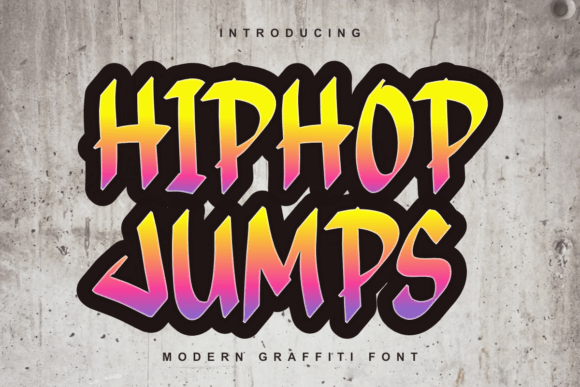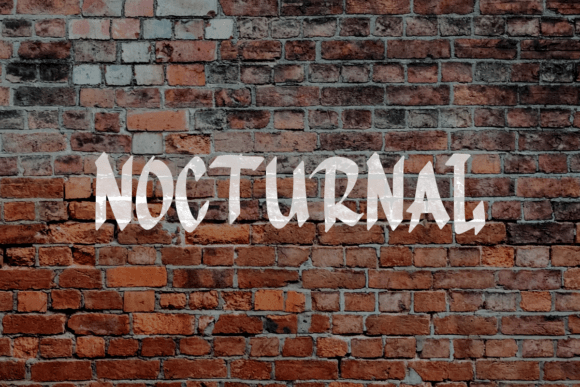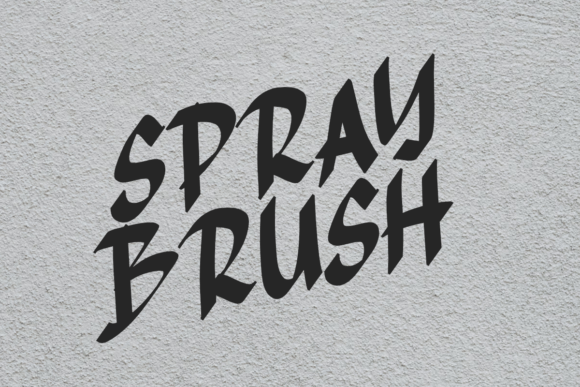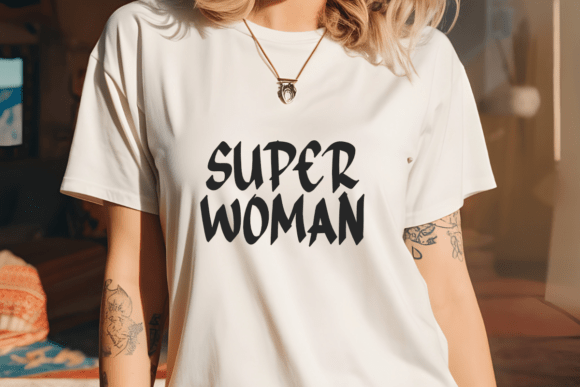
HipHop Jumps Font: Bold Graffiti Display Font for Urban Branding!
About the Hiphop Jumps Font
We are excited to introduce Hiphop Jumps Font, a must-have typeface for any serious designer. HipHop Jumps is a modern graffiti font with a clean yet bold aesthetic, perfect for adding an urban edge to your craft projects, branding, business logos, Etsy shops, and more. This font blends street style with a sleek, minimalist touch, making it ideal for stickers, posters, T-shirts, digital prints, and creative logos. Whether you’re designing for urban fashion, music events, or edgy DIY crafts, HipHop Jumps delivers a fresh and energetic look
HipHop Jumps excels in headlines, short impactful slogans, and logos where its bold character makes a statement. It’s also highly effective for posters and packaging requiring a strong visual punch. However, its condensed letterforms and strong weight make it unsuitable for body text or long paragraphs; readability suffers at smaller sizes.
This font’s rebellious, yet modern personality pairs well with clean sans-serifs like Montserrat or Open Sans for a balanced contrast. For a more playful feel, consider pairing it with a rounded geometric sans-serif like Poppins. A classic serif like Playfair Display could add a touch of sophistication when used sparingly.
Avoid using HipHop Jumps in user interfaces or situations demanding high legibility across various screen sizes. Its strength lies in short, impactful applications where its urban edge shines.
Hiphop Jumps Font Usage Examples
Hiphop Jumps Font Example